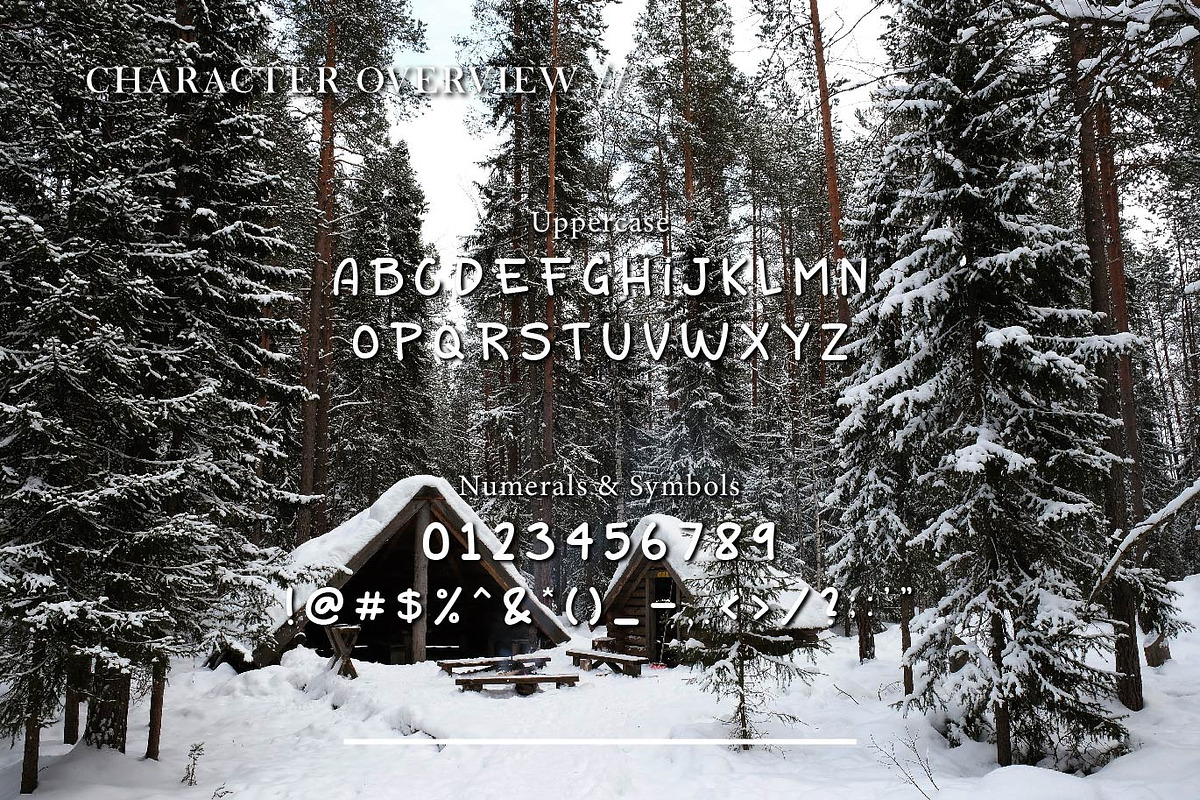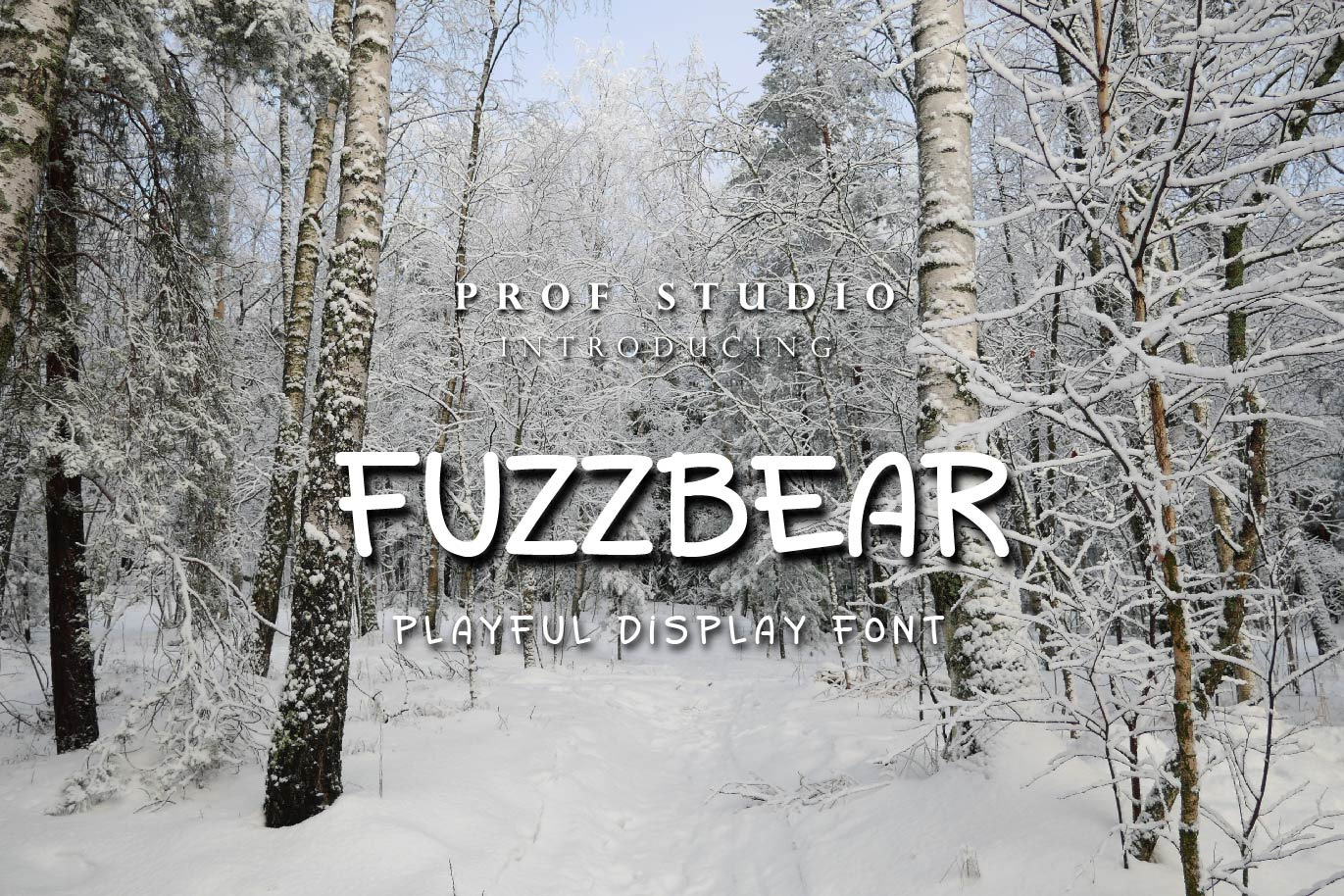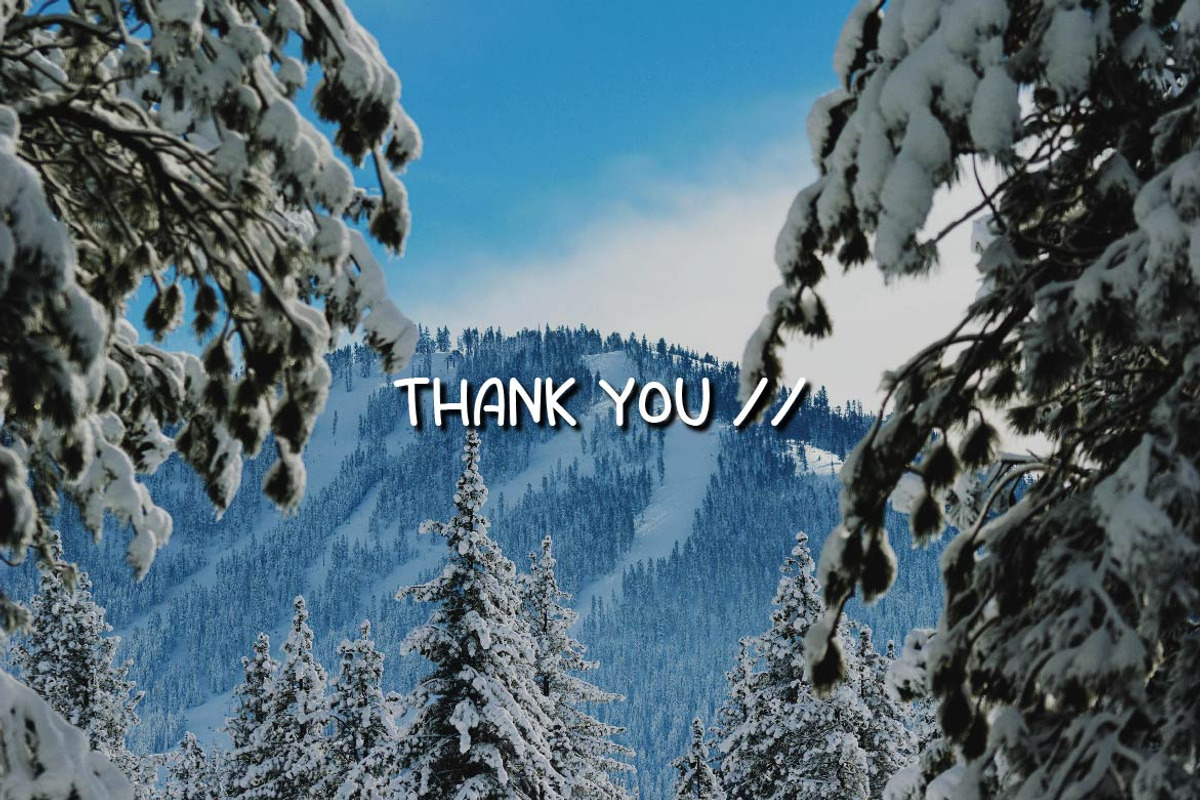
Fuzzbear - Playful Handwritten Font
Hi Ladies and Gentleman ! Proudly present Playful Handwritten Font “Fuzzbear” for your business.
Fuzzbear - Playful Handwritten Font which can be interpreted professional. we keep this font looks modern, playful, cute, readable, stylish, catchy and easy to use.
Fuzzbear - is the great choice for event design ,magazine, brand design, and many other design project. Fuzzbear here to make your work to high level!!!